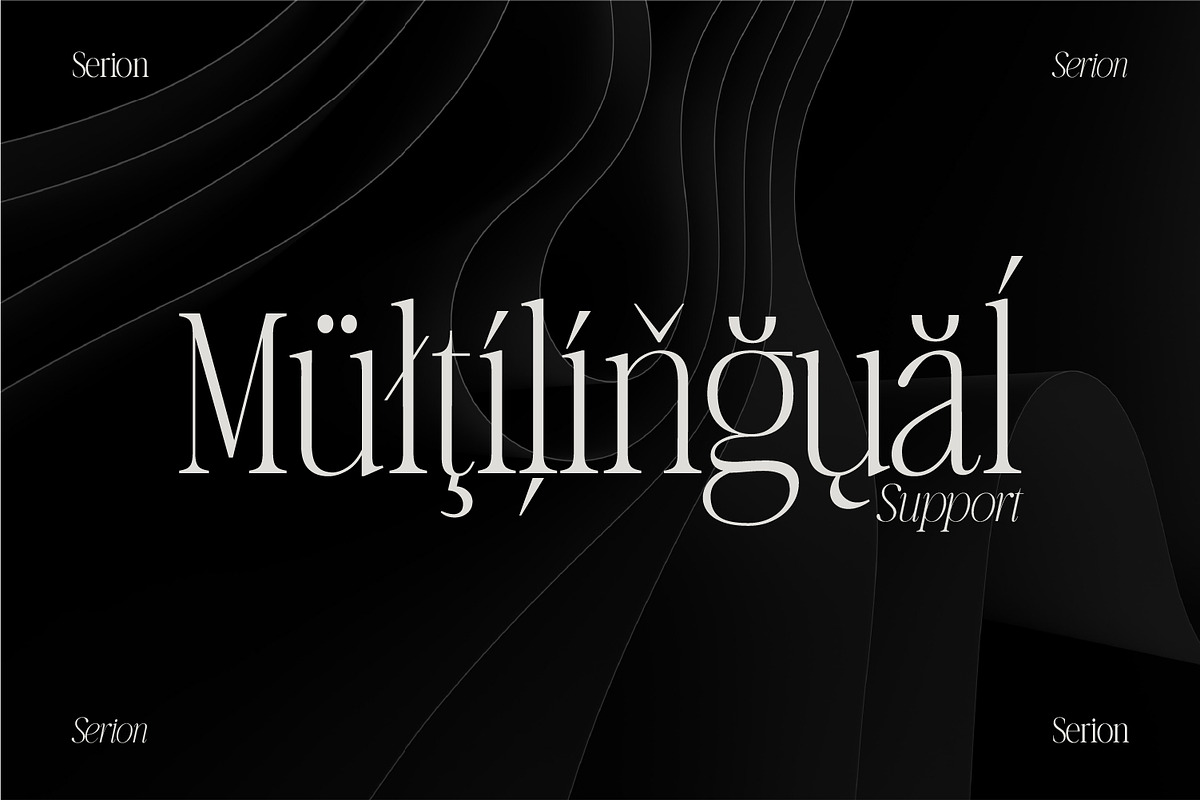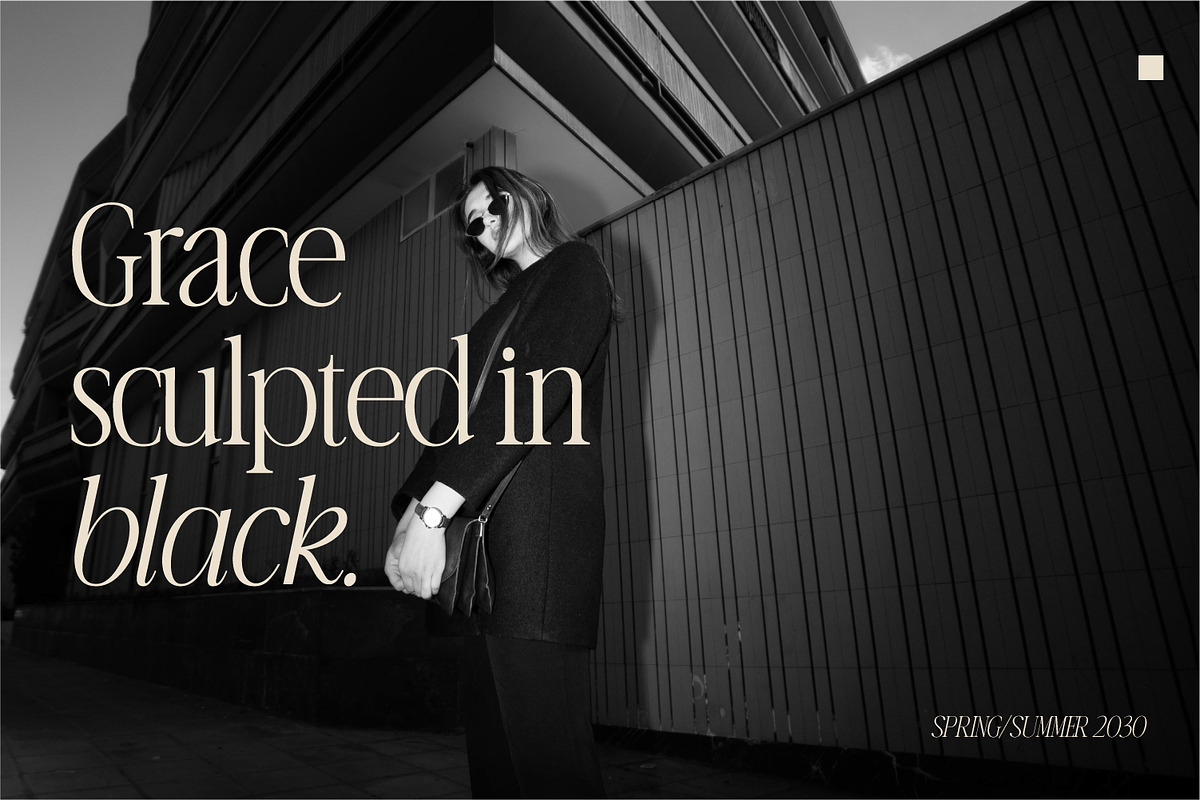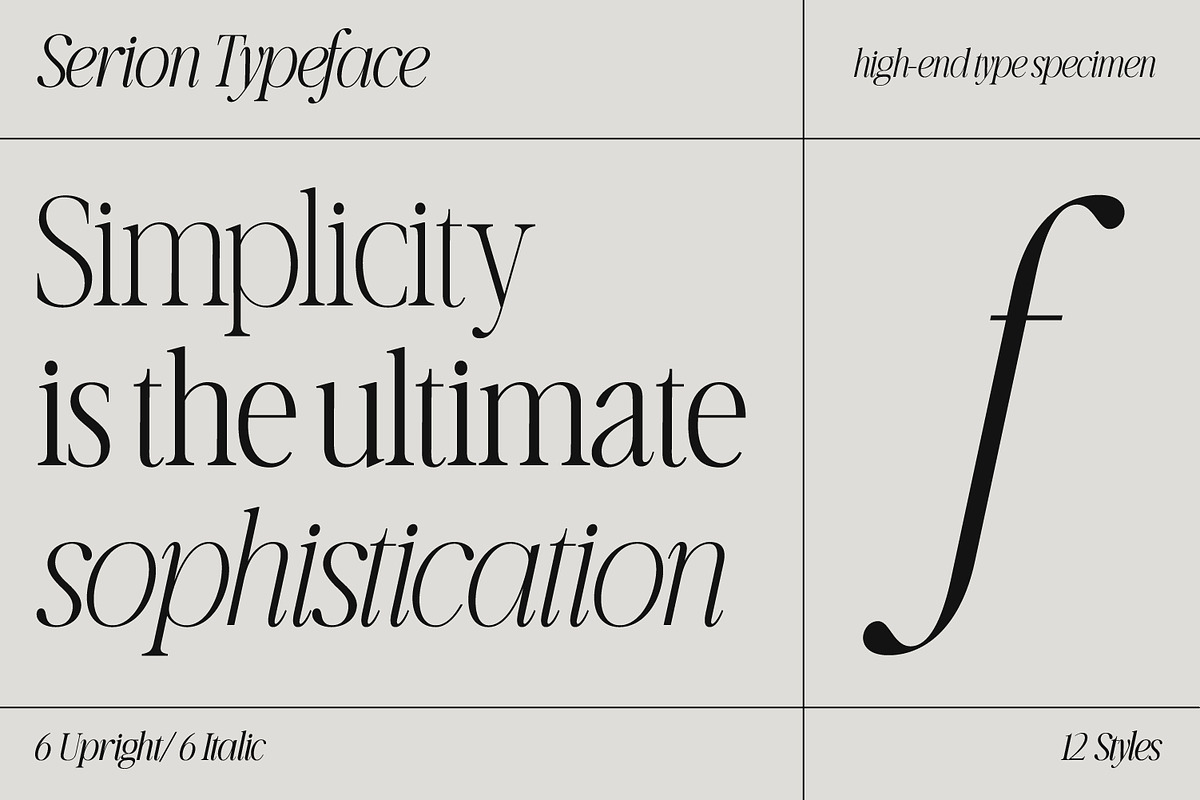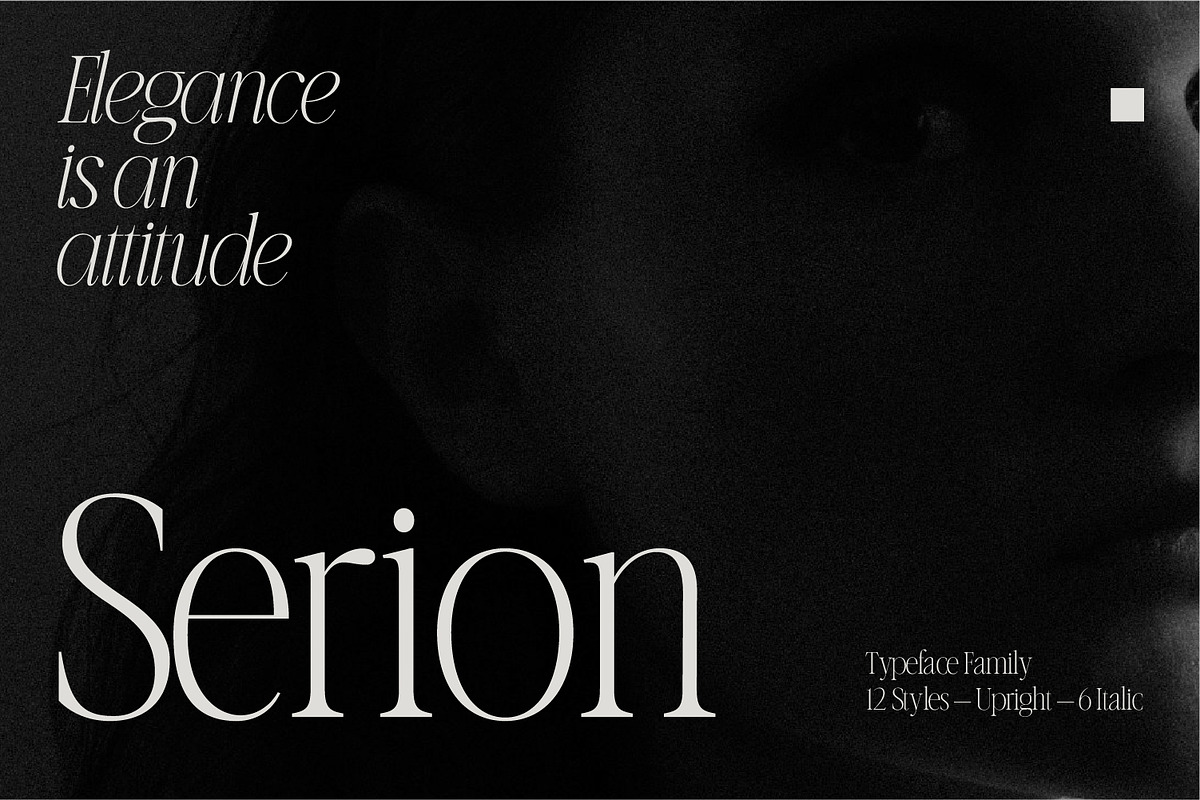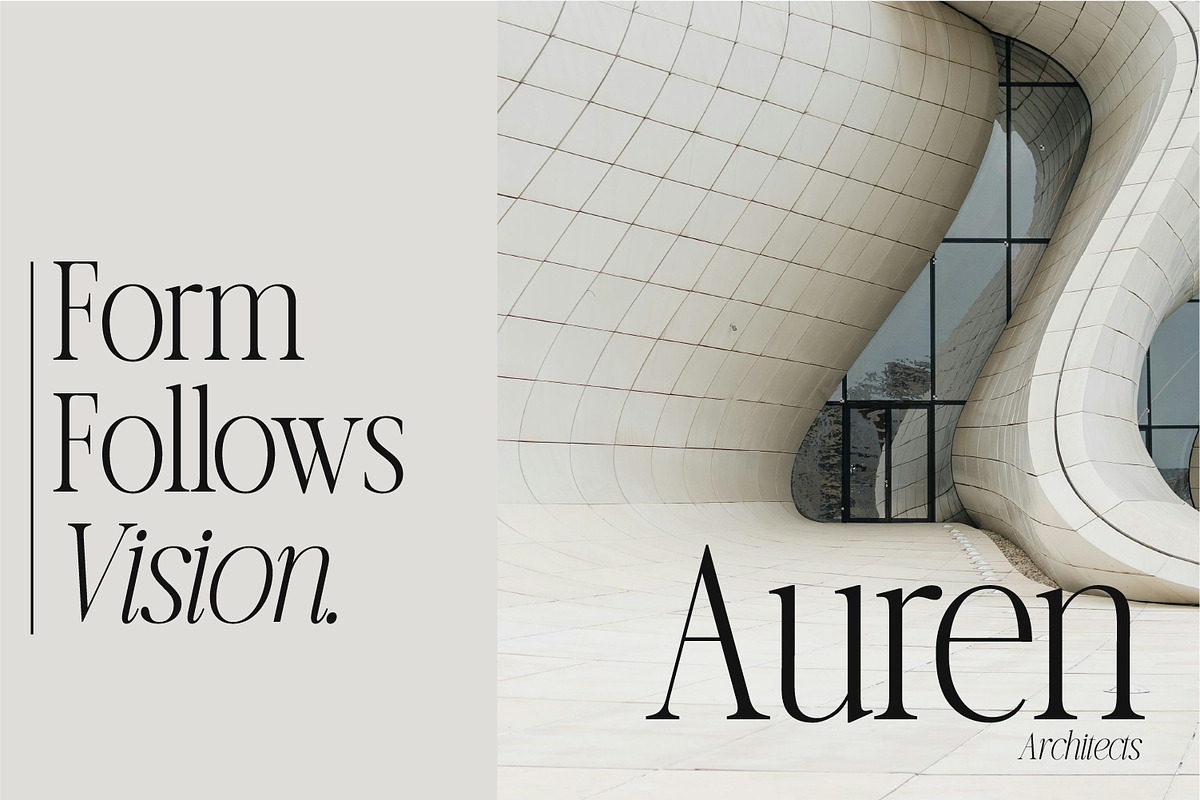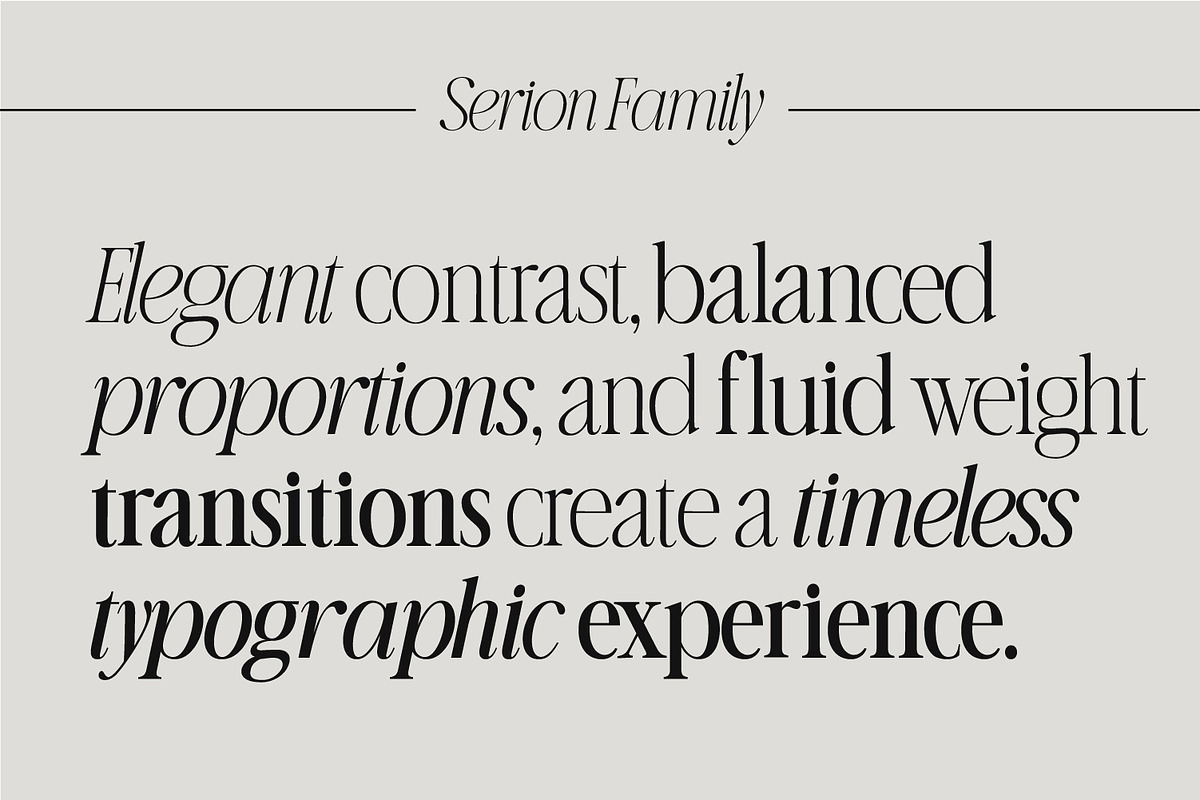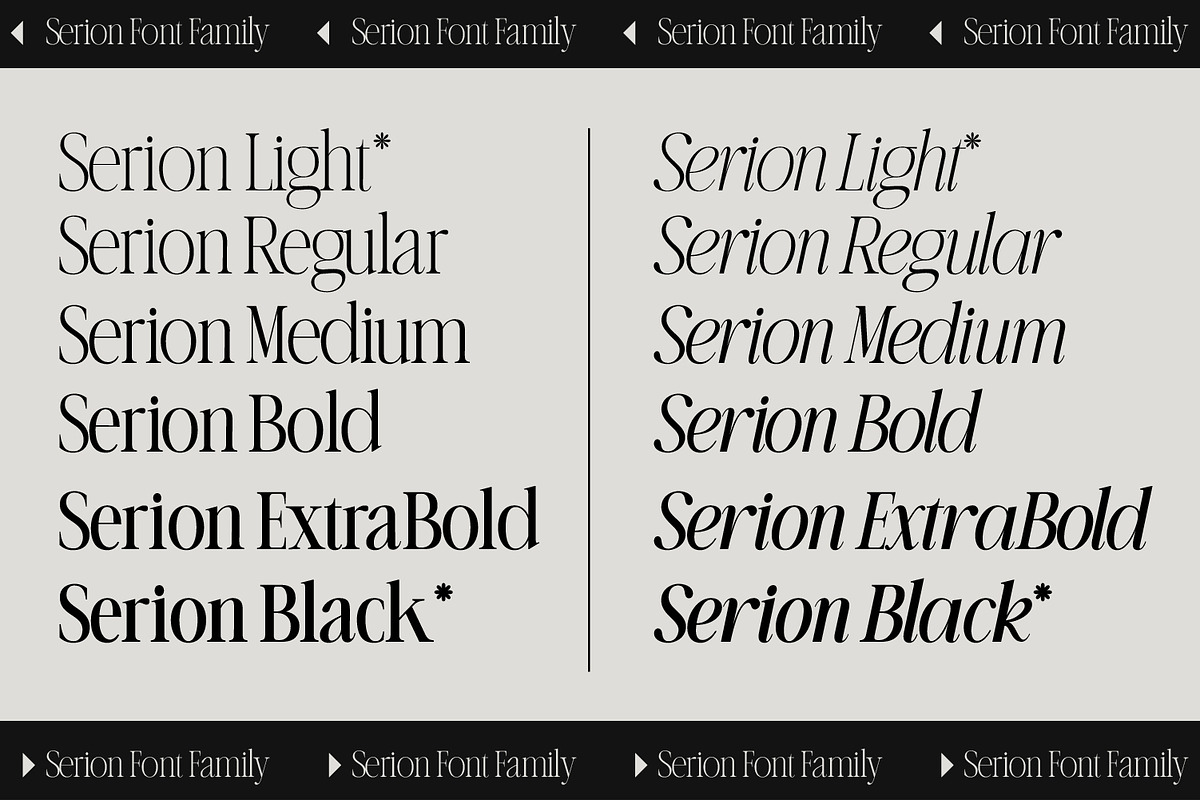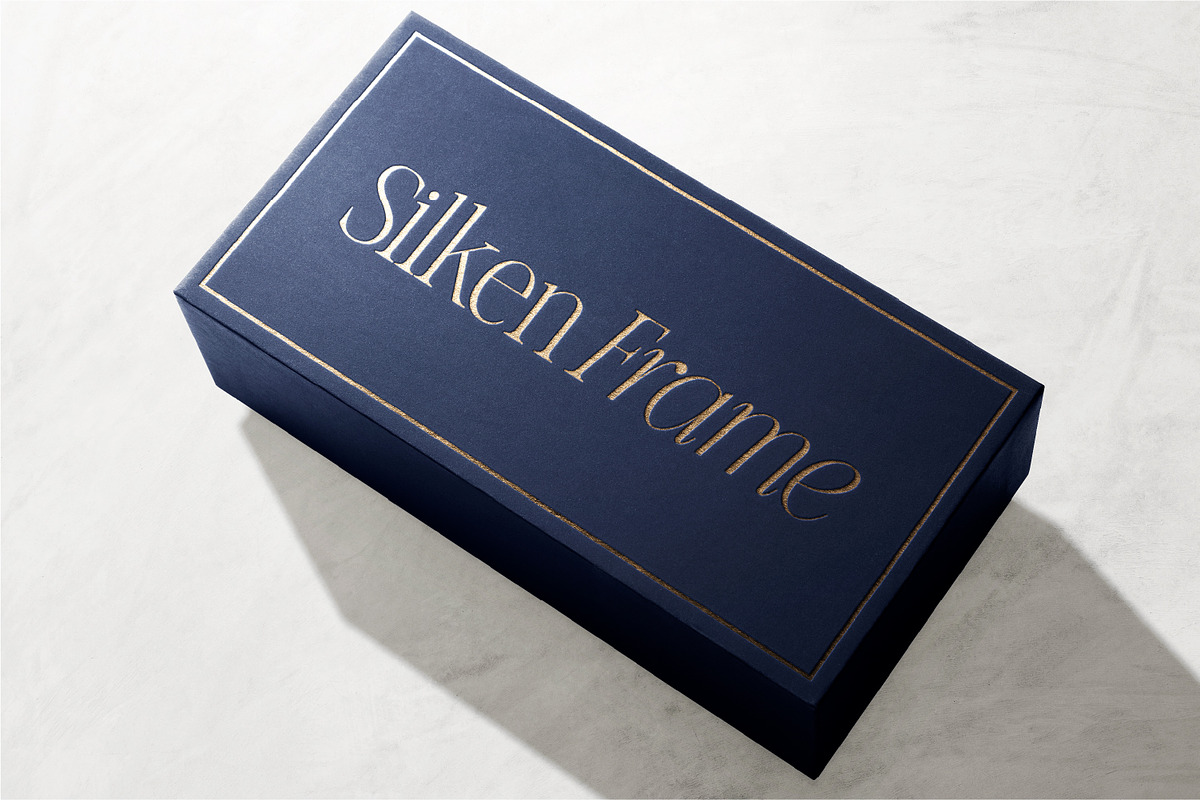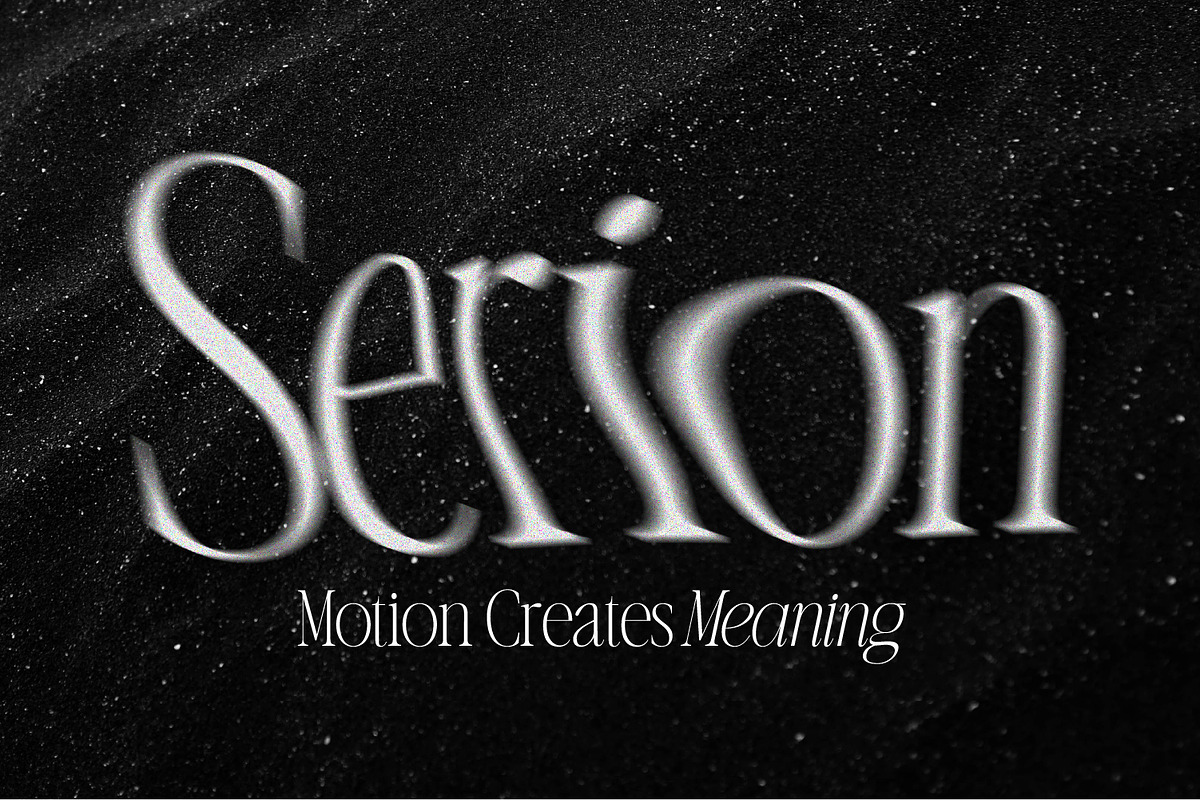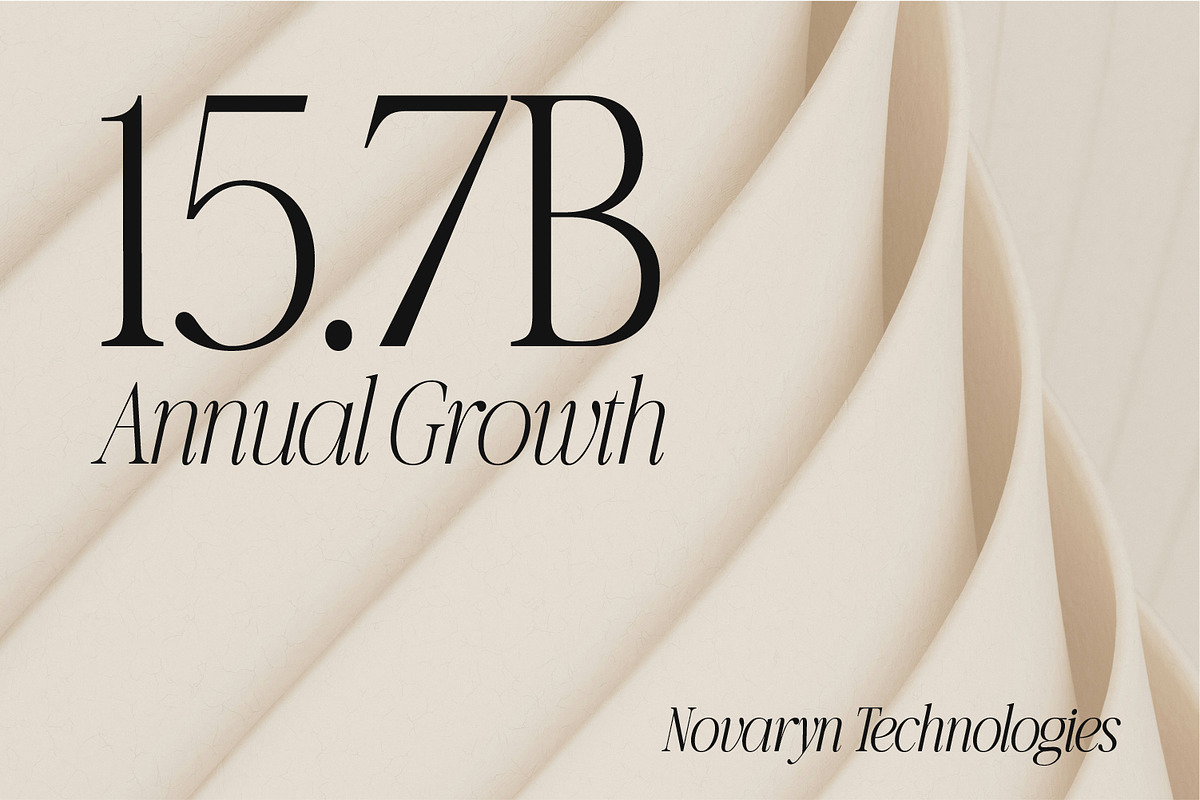
Serion Family
Serion — Modern Variable Typeface Family
Serion is a sleek modern variable typeface family designed for premium branding, editorial design, and contemporary visual identities.
Featuring 12 refined styles — including 6 Upright and 6 Italic variations — Serion blends minimalism, elegance, and precision into a versatile professional type system.
Its clean geometry, polished curves, and modern proportions make it ideal for luxury branding, fashion campaigns, packaging, websites, presentations, logotypes, and high-end editorial layouts.
Serion was crafted to feel sophisticated, futuristic, and highly readable across both print and digital applications.
Branding & Identity
Editorial Design
Luxury Packaging
Fashion & Beauty
Websites & UI
Posters & Advertising
Modern Logos
Corporate Design
12 Font Styles
6 Upright Fonts
6 Italic Fonts
Modern. Refined. Professional.
Serion is built to elevate contemporary design systems with clarity and elegance.